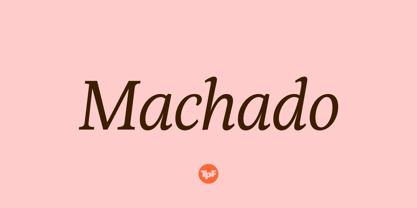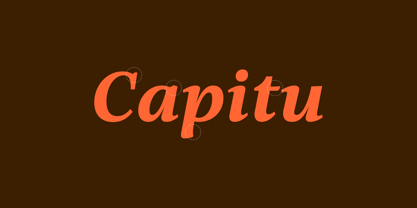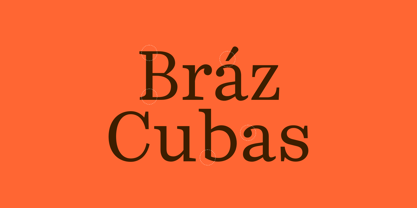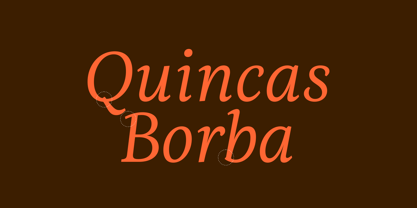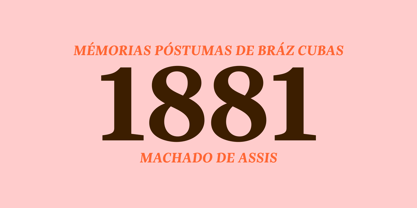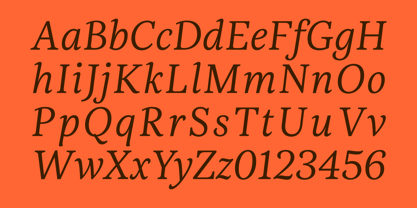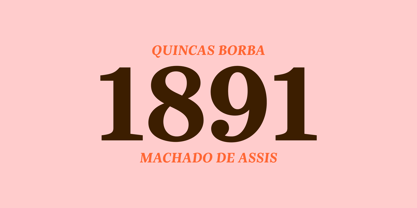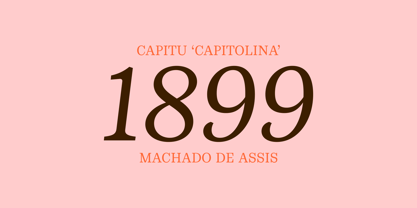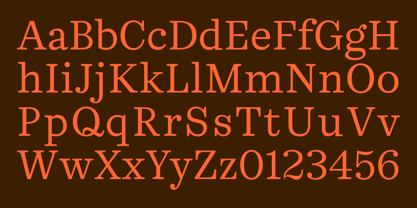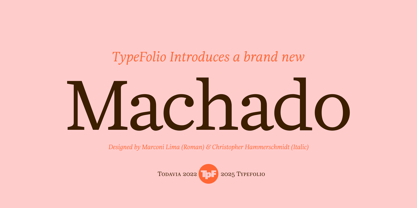
Machado Serifada
The Machado Serifada Font Family was designed by Marconi Lima, Christopher Hammerschmidt and published by Typefolio. Machado Serifada contains 4 styles and family package options. More about this family
Machado is a type family developed in 2022 exclusively for Editora Todavia (São Paulo, Brazil), crafted to establish the visual identity of the groundbreaking Machado de Assis Collection. Designed to complement the complete works of Brazil’s most celebrated writer, this type family merges literary tradition with editorial precision, delivering exceptional performance in long-form reading. Primarily intended for editorial design, Machado shines in books, literary collections, essays, magazines, newspapers, cultural catalogs, and institutional publications. Its balanced structure ensures comfortable reading over extended texts, while its refined details add character for covers, headlines, chapter openings, and complex typographic hierarchies. The family boasts an extensive character set and advanced typographic features, including true italics, small caps, multiple numeral styles, ligatures, and meticulously designed ornaments. These attributes provide remarkable flexibility for sophisticated editorial projects, enabling precise typographic control across various contexts and scales. Historically, Machado adopts a thoughtful and authorial approach: its italic is not a mechanical derivative of the roman, but an independently crafted system with its own construction logic, rhythm, and modulation. This design choice engages with classical typographic traditions and enhances the literary essence of the family, broadening its expressive range while maintaining overall coherence. In 2026, after the conclusion of its temporary license, the Machado family will officially join the TypeFolio library, becoming available for editorial, institutional, and cultural projects that require sophistication, consistency, and typographic rigor.